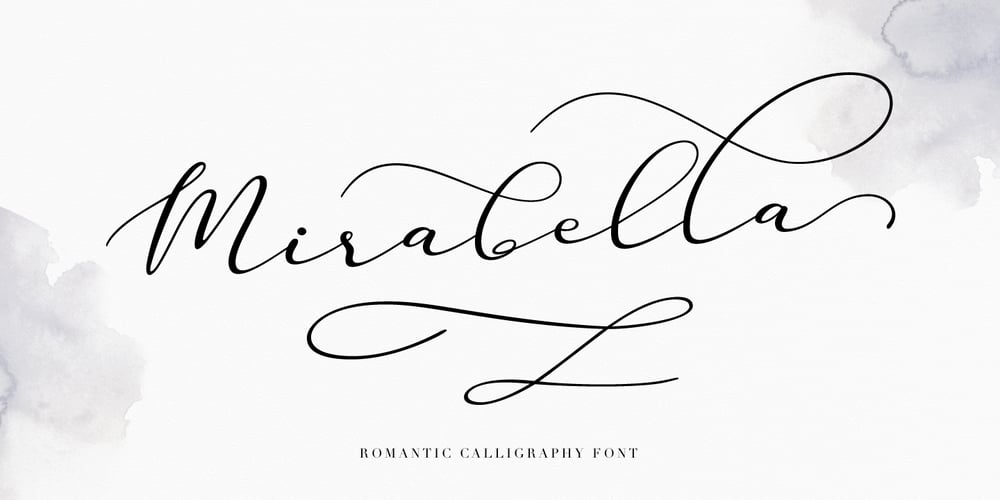
Mirabella Font Family was designed by Pavel Larin and published by Larin Type Co. Mirabella contains 1 styles and family package options. Mirabella script- a new handmade calligraphy font. This font is ideal for branding and decorate your any project, are perfect for wedding invitation or your blog. Also with their help, you can create a logo or beautiful frame for your home. Or just use for your small business, book covers, stationery, marketing, magazines and more. Also for you, I have prepared many alternatives that will help you make your project more unique. Following international symbols support: ÀÁÂÃÄÅĄÇĆÈÉÊËĘÌÍÎÏÐÑŃŁÒÓÔÕÖØÙÚÛÜŚŠŸÝŹŻŽßàáâãäåçèéêëìíîïðñòóôõöøùúûüýÿąćęłńśšźżž